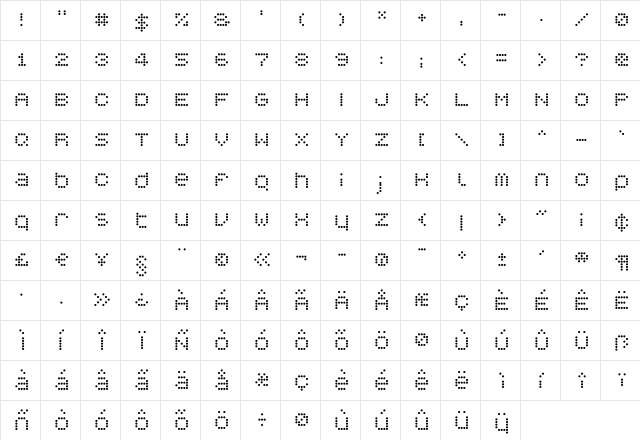
SynChro Regular
Design Context for SynChro Typeface
SynChro takes a measured approach to typography — its balanced proportions and neutral character make it a reliable workhorse for both digital and print work.